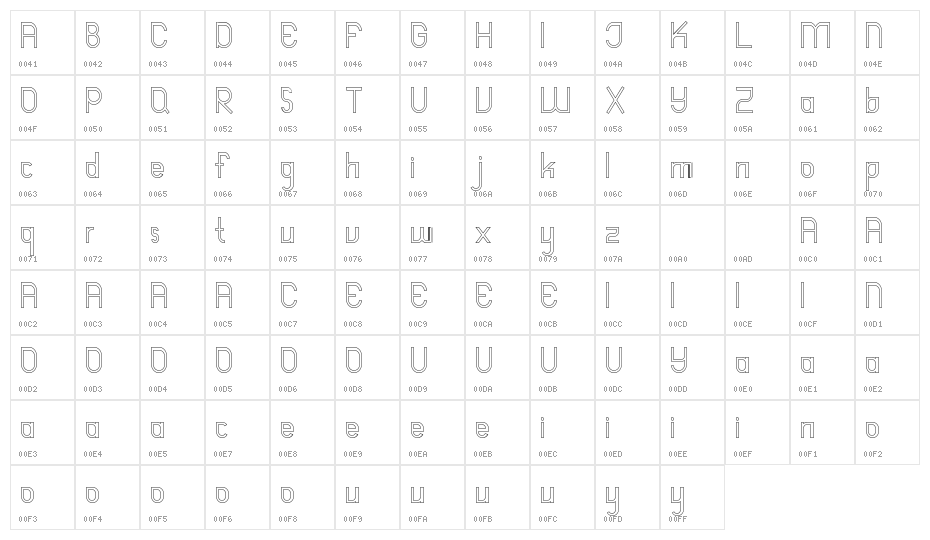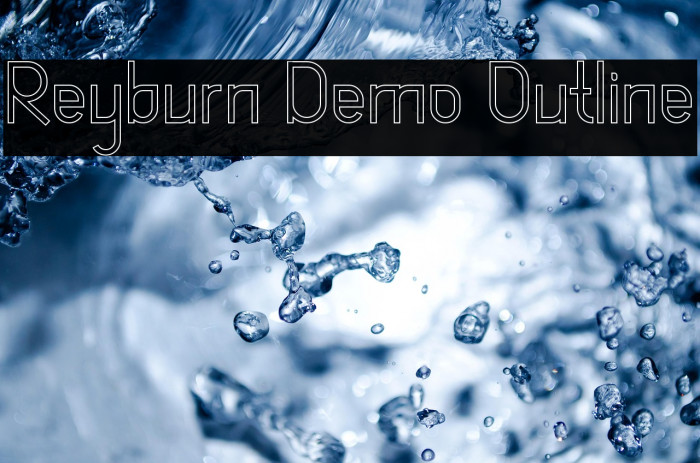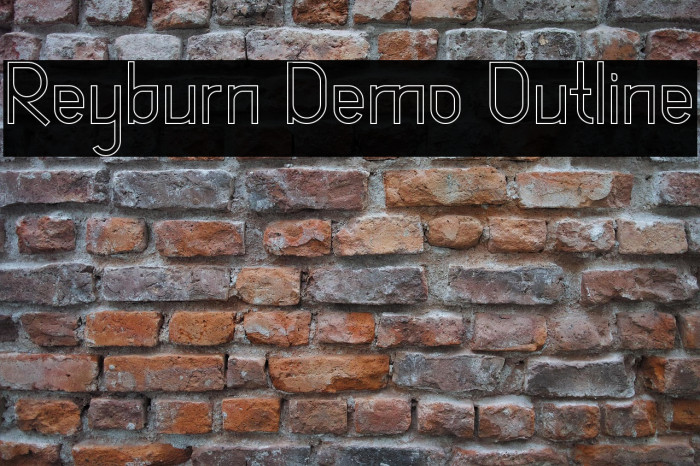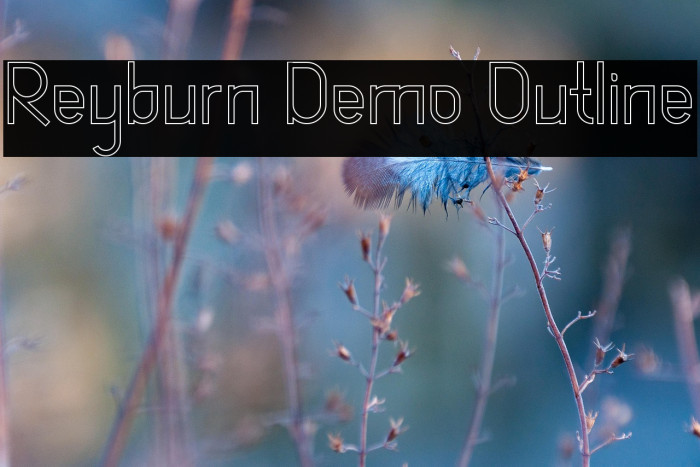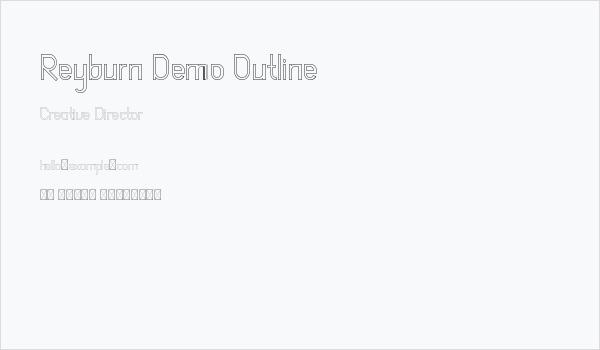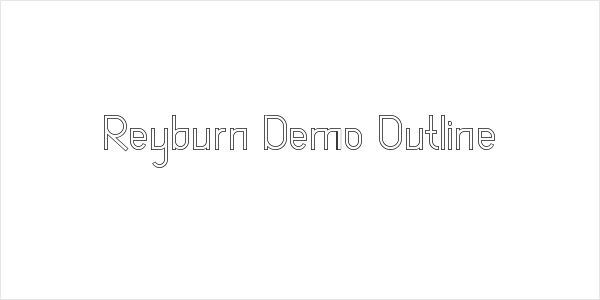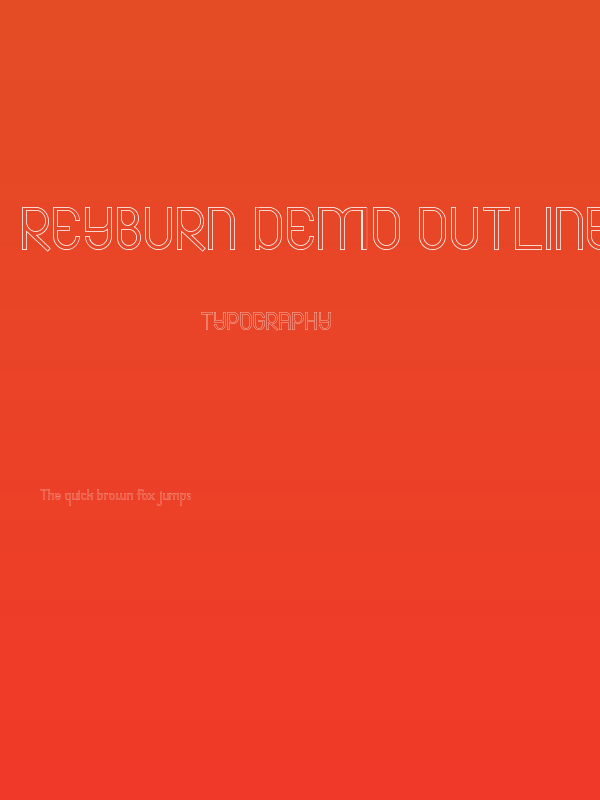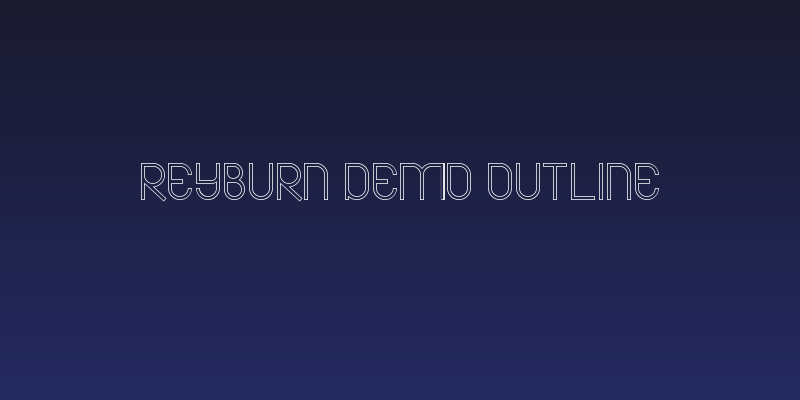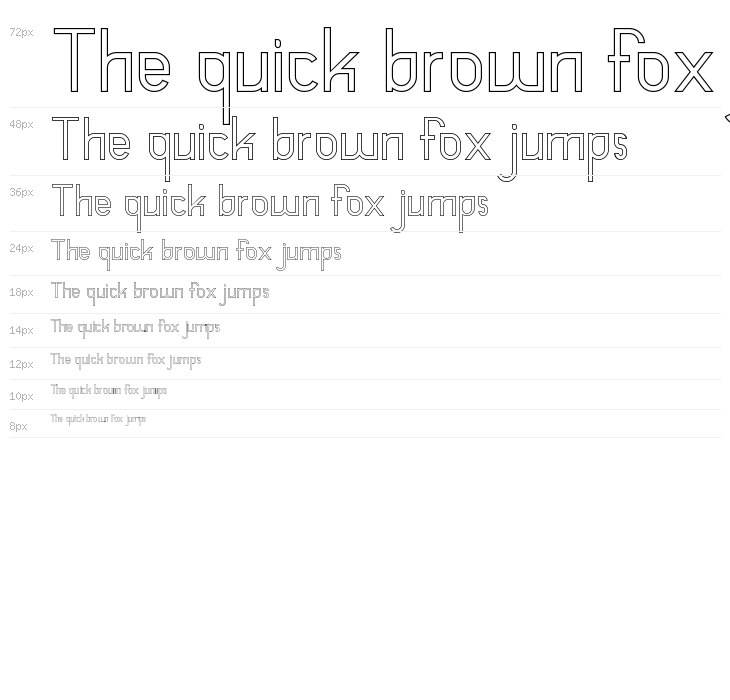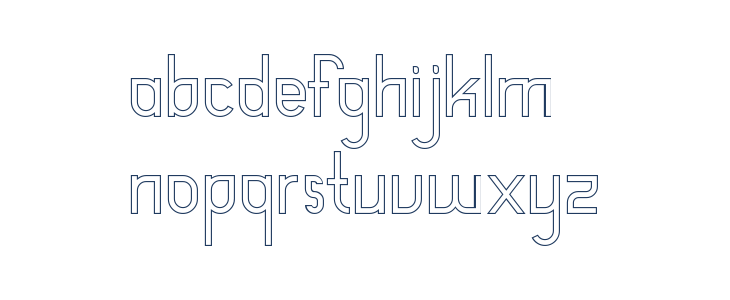
Reyburn Demo Outline Font
Reyburn Demo Outline Description
This font features a unique outline style that gives it a modern and futuristic appearance. The characters are constructed with clean, geometric lines that form an open, airy structure. Each letter is outlined, creating a hollow effect that adds depth and dimension. The uppercase and lowercase letters maintain a consistent design, with smooth curves and sharp angles that enhance readability. The numerals and special characters follow the same design principles, ensuring a cohesive look across all text elements. This font's distinct outline style makes it stand out, making it ideal for creative and eye-catching designs.